Many brands only uses font based logos, because they know that an eye-catching brand visuals aren't only about the colors, a simple written word in a specific font can turn heads.
To choose the best font for your brand, you need to first understand the emotions behind typography. With typography, you can provoke a psychological response that can be used to make a brand feel more reliable, welcoming, or aspirational.
Before we begin, you need to know the terminology associated with typography first.
Font: Allows you to set the size, style and weight of a type. It is the delivery mechanism of a Typeface.
Typeface: is the physical appearance in design.
Font family: is a collection of typefaces that are intended to be used together and consists of varying weights and styles.
Kerning: is the process of adjusting the physical space between individual characters.
Letter spacing or tracking: is the physical space between blocks of characters.
Not to be confused with kerning which is the actual space between individual characters.
Leading: is the amount of vertical space between lines of actual texts.
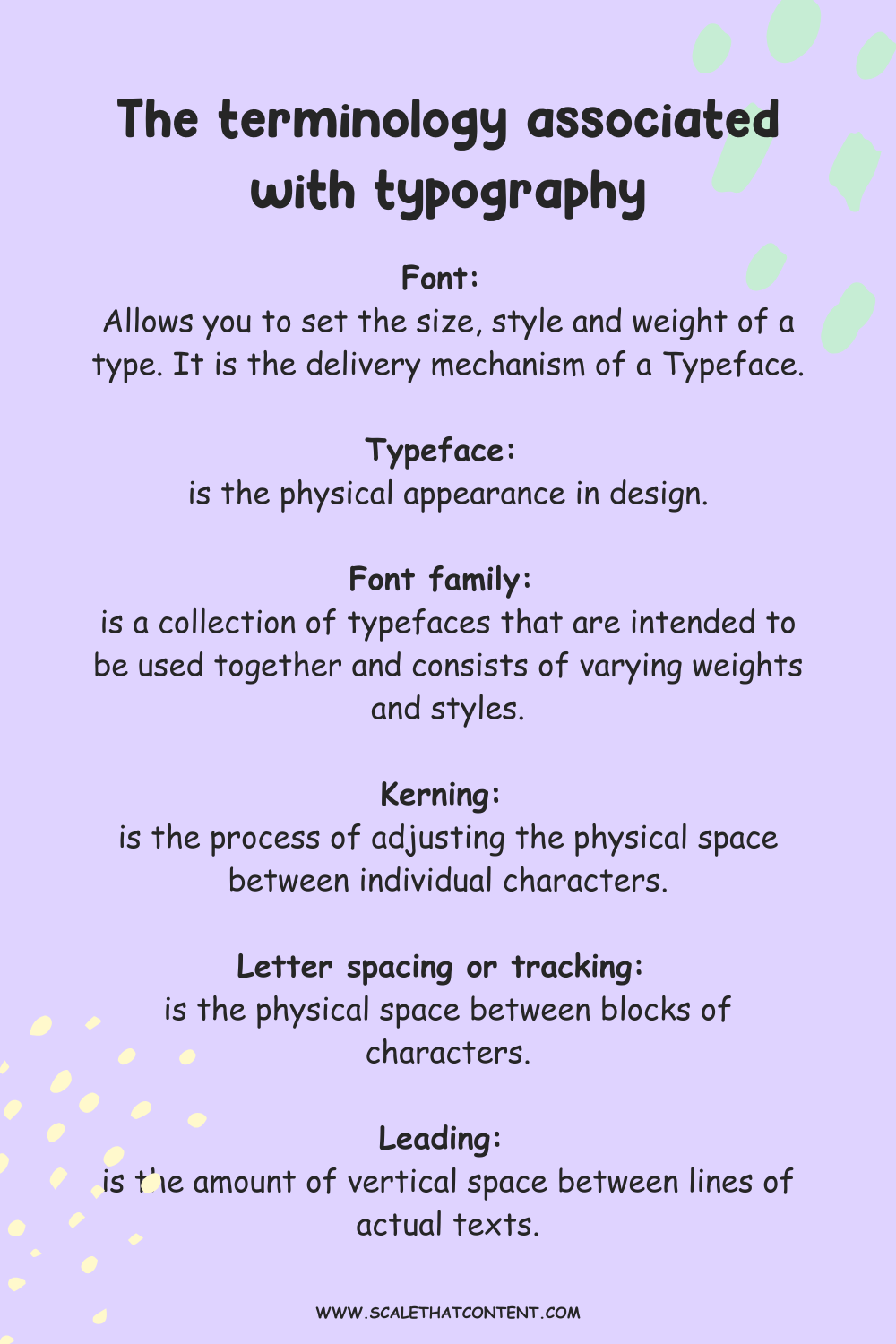
Now you understand the terminology behind typography, so let's dive in.
When selecting a typeface for use within a visual identity, first thing you need to know is that there are five basic types, or families, of fonts: serif, sans serif, cursive, fantasy, and monospace.
Each of them triggers a certain emotion when used in any design.
Serif:
Represents: tradition, establishment, luxury, etc…
**Slab-Serif (is a variant of the serif typeface, a super thick, blocky serifs.):
Represents: confidence, solidity, boldness, & innovative.
Sans-Serif:
Represents: modern minimalist & simplistic.
Script (cursive):
Represents: femininity, elegance, creativity & personal.
Fantasy (decorative):
Represents: playfulness, friendly & amusing.
Monospace:
Represents: dull, plain, & unimaginative.
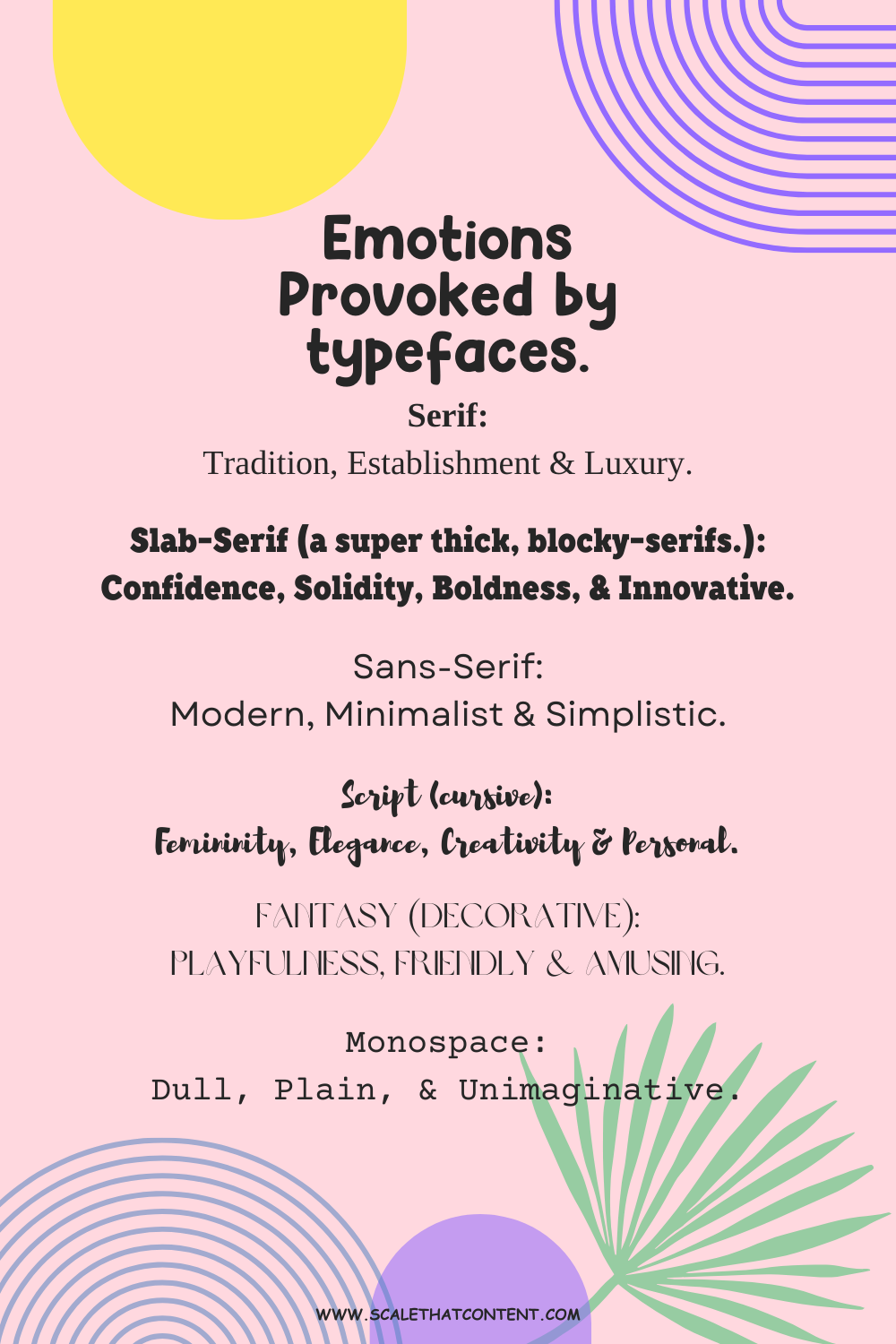
From that you'll be able to choose your fonts.
On a final note, remember that the typeface you use to display the business name in the logo does NOT have to be the typeface you use for the visual identity.
Now that you're familiar with some basic concepts & terminology surrounding typography you will be able to put it to use in your future identity projects.